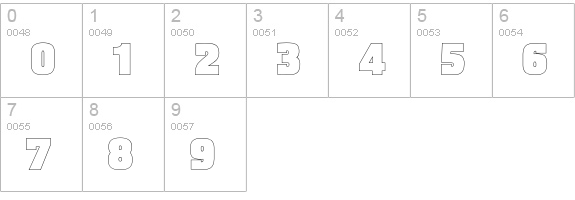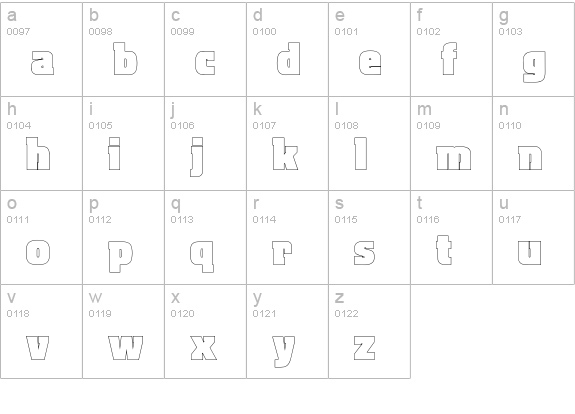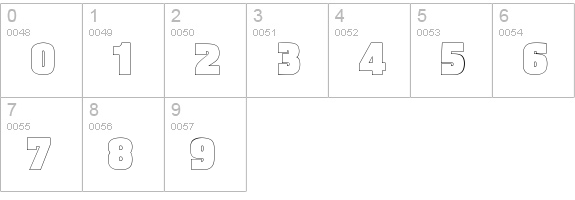
AquariusOutline Font Details
AquariusOutline is a uniquely stylish and modern font that exudes a sense of creativity and originality. With its bold lines and sleek design, this font is perfect for making a statement in any project. The outline style adds a touch of sophistication and elegance, making it suitable for a wide range of design applications. AquariusOutline is not only visually appealing, but it also offers great versatility. Whether you're designing a poster, logo, headline, or any other creative project, this font will surely stand out and make a lasting impression. Its clean and crisp lines ensure readability, while its distinct personality adds a touch of flair to your designs. What's even better is that AquariusOutline is available for free download at FontsMarket.com. This means you can easily access this fantastic font and use it in your projects without any cost. Don't miss out on the opportunity to enhance your designs with the unique charm of AquariusOutline font. Download it today and let your creativity shine!